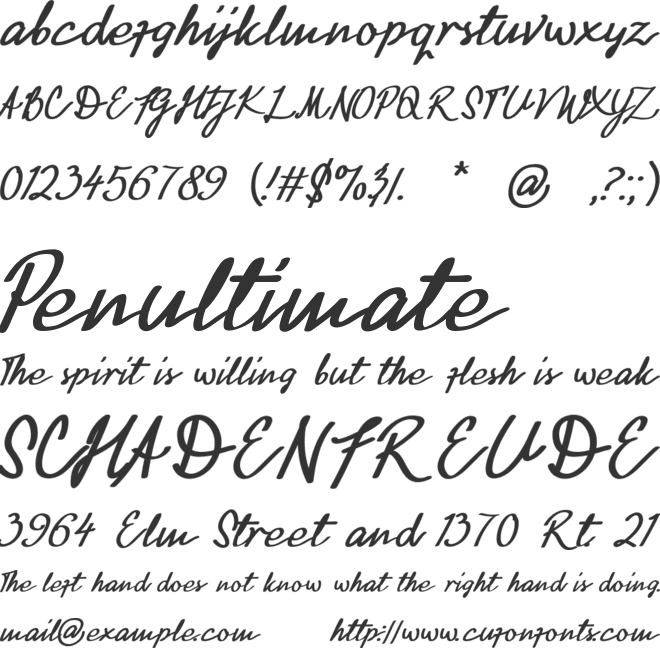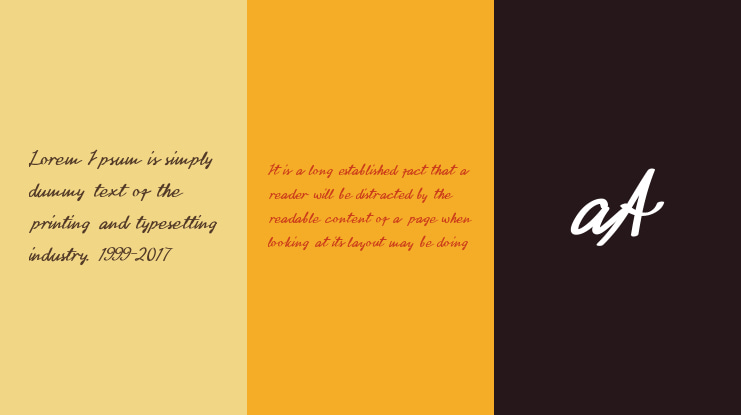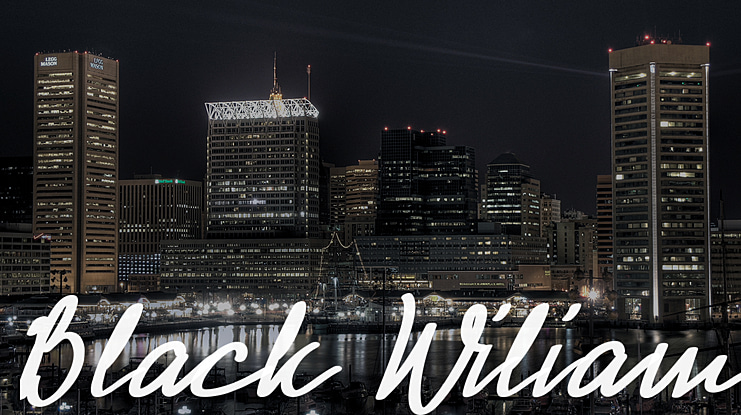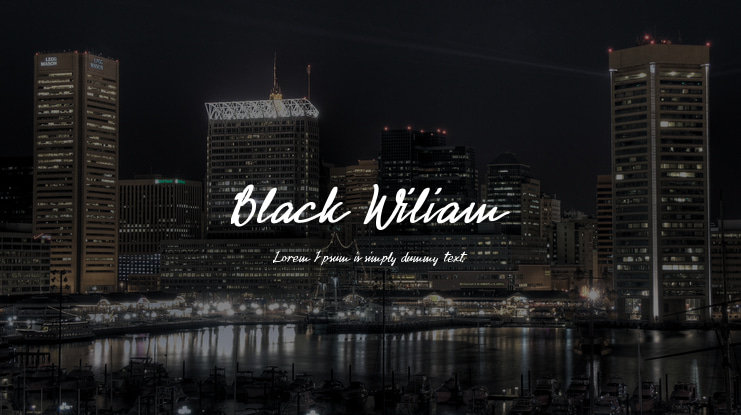
Black Wiliam Font
Black Wiliam Modern Script is a Bold Signature Font script with a natural flow style. It doesnt seem to fully follow the rules of handwriting but this font has its own writing style which makes it more humane and not a generic handwriting style. This typeface contains several features to make it more natural in writing. This font contains the complete set of lower & uppercase letters, various punctuation marks, and numbers. Suitable for all uses such as logos, name tags, handwritten quotes, product packaging, stationary, Signage, merchandise, social media & greeting cards, etc.